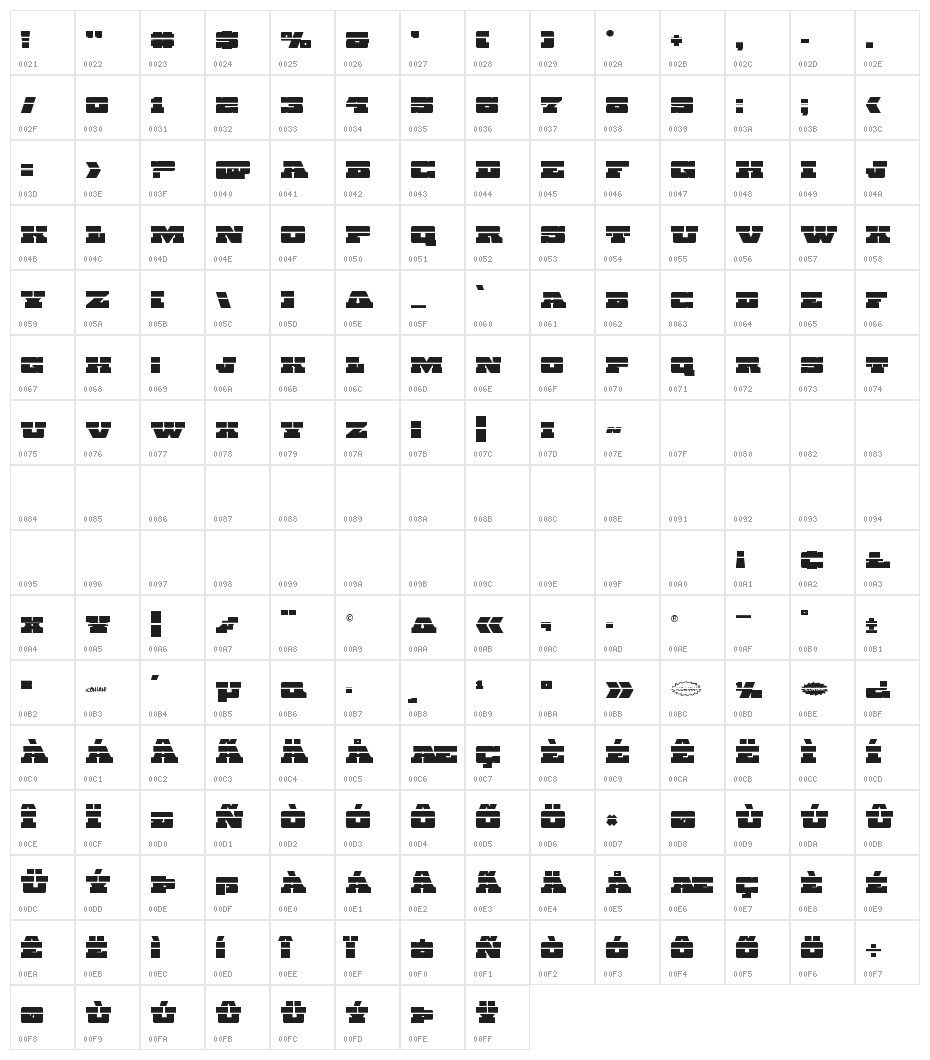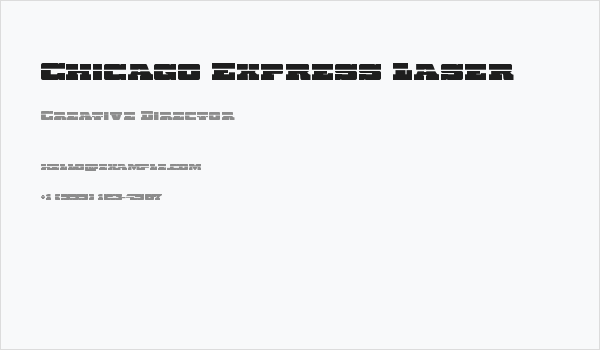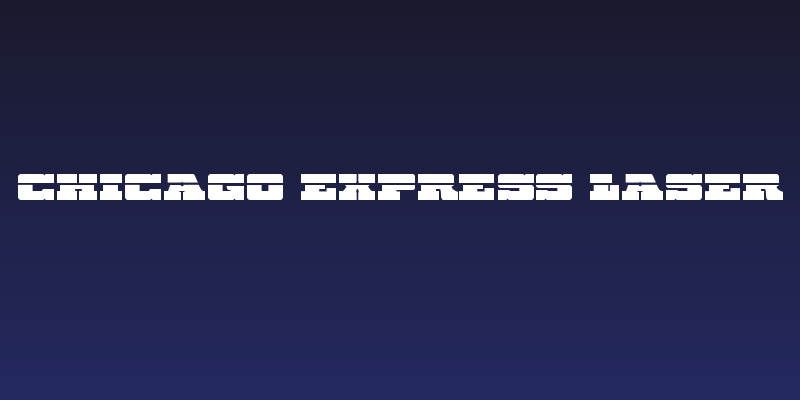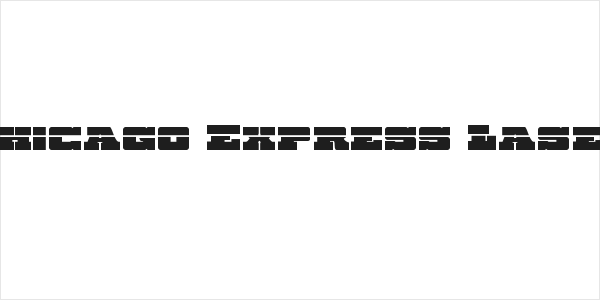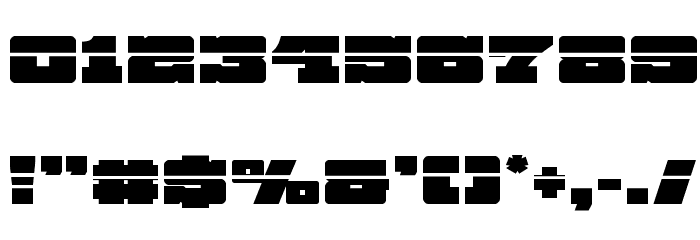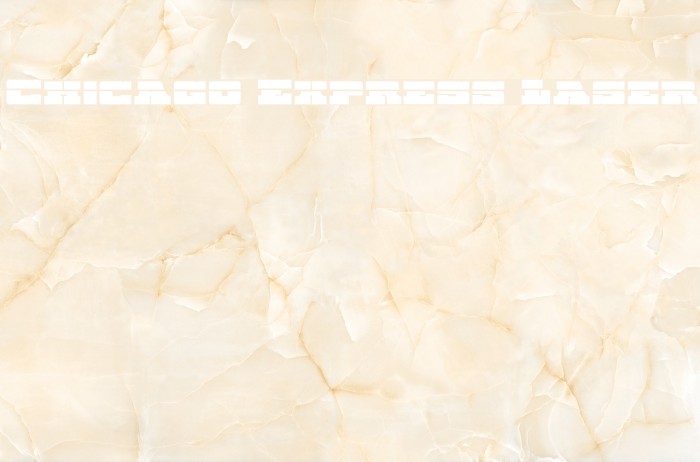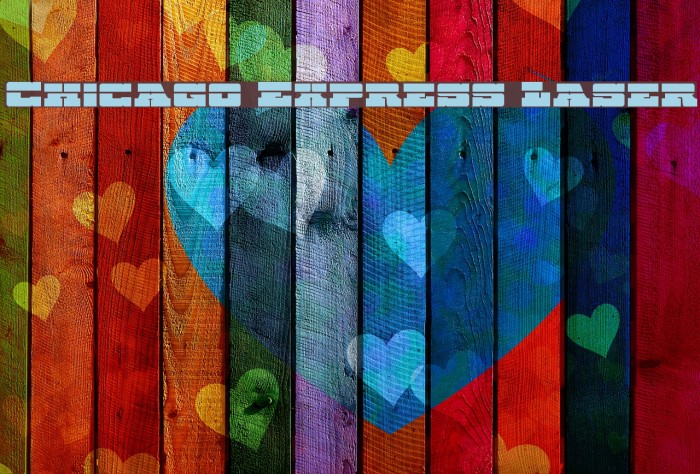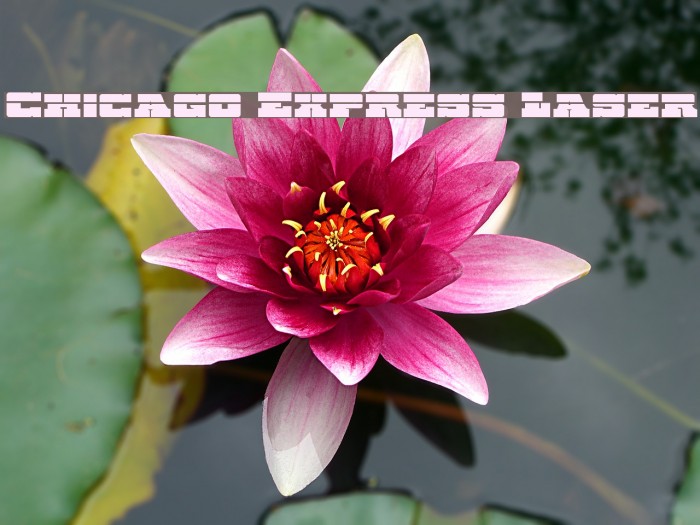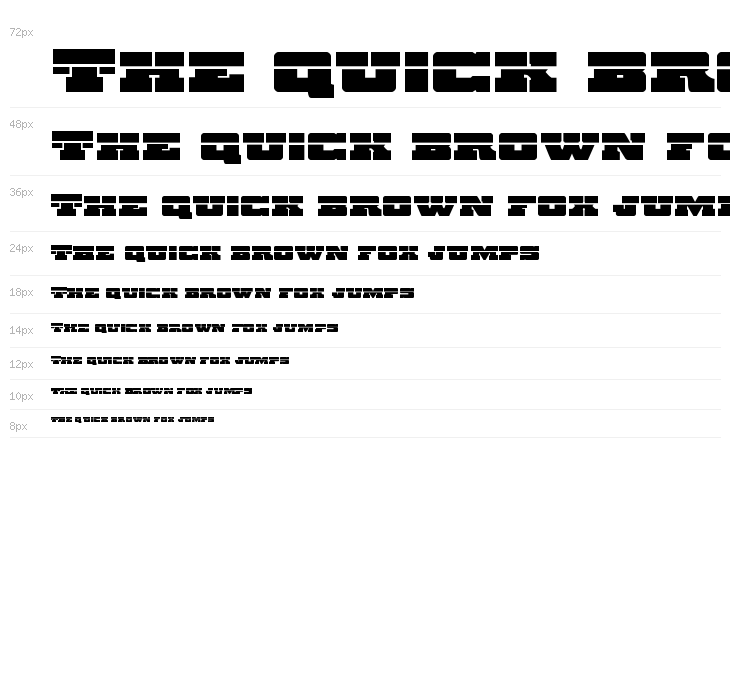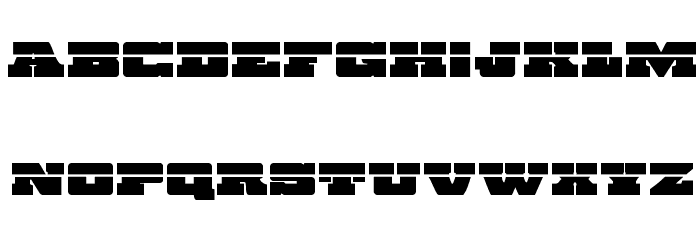
Chicago Express Laser Font
Chicago Express Laser Description
This font features a bold, geometric design with a distinctly modern and industrial feel. The characters are constructed with thick, blocky shapes that create a sense of strength and stability. The font's style is reminiscent of stencil or laser-cut designs, with sharp angles and clean lines that give it a futuristic appearance. The uppercase and lowercase letters maintain a consistent weight, contributing to a uniform look across the typeface. The numerals and special characters are designed to match the boldness and angularity of the letters, ensuring a cohesive visual identity. This font is ideal for projects that require a strong, impactful presence.
| Proposed Projects | Ideal for branding, signage, posters, and any project needing a strong, impactful typeface. |